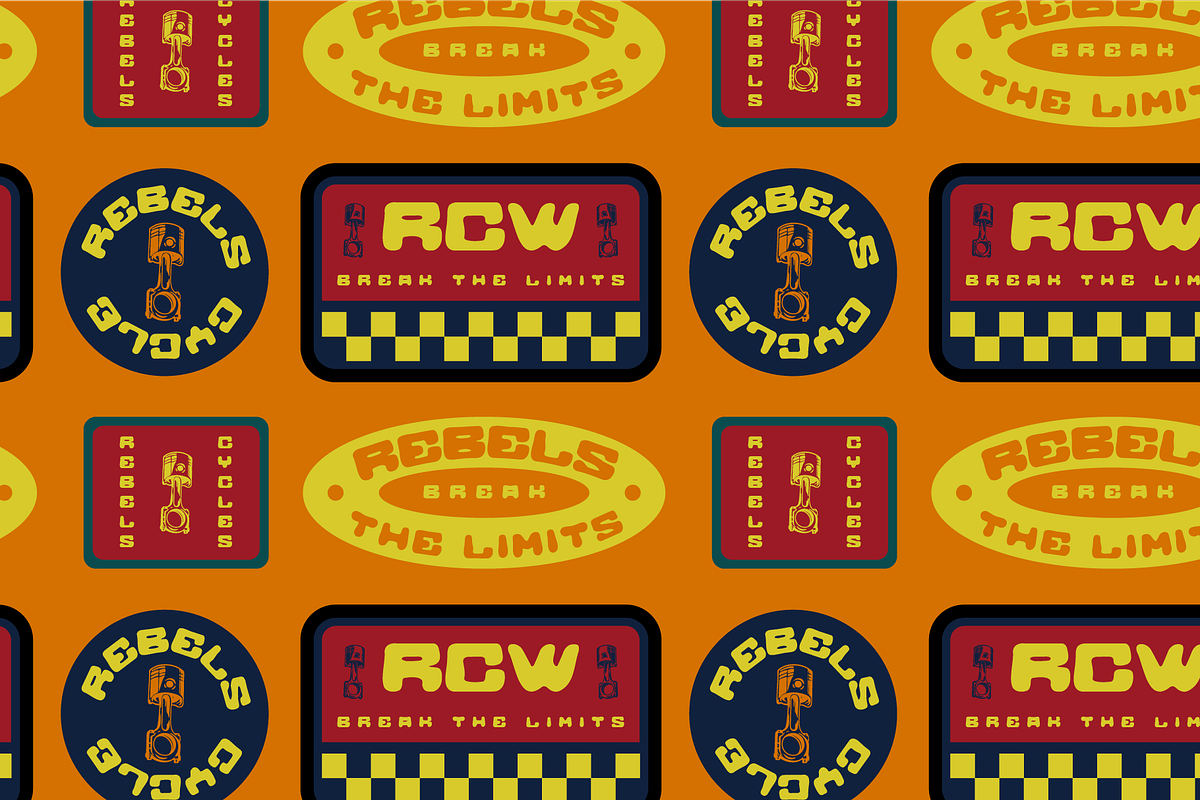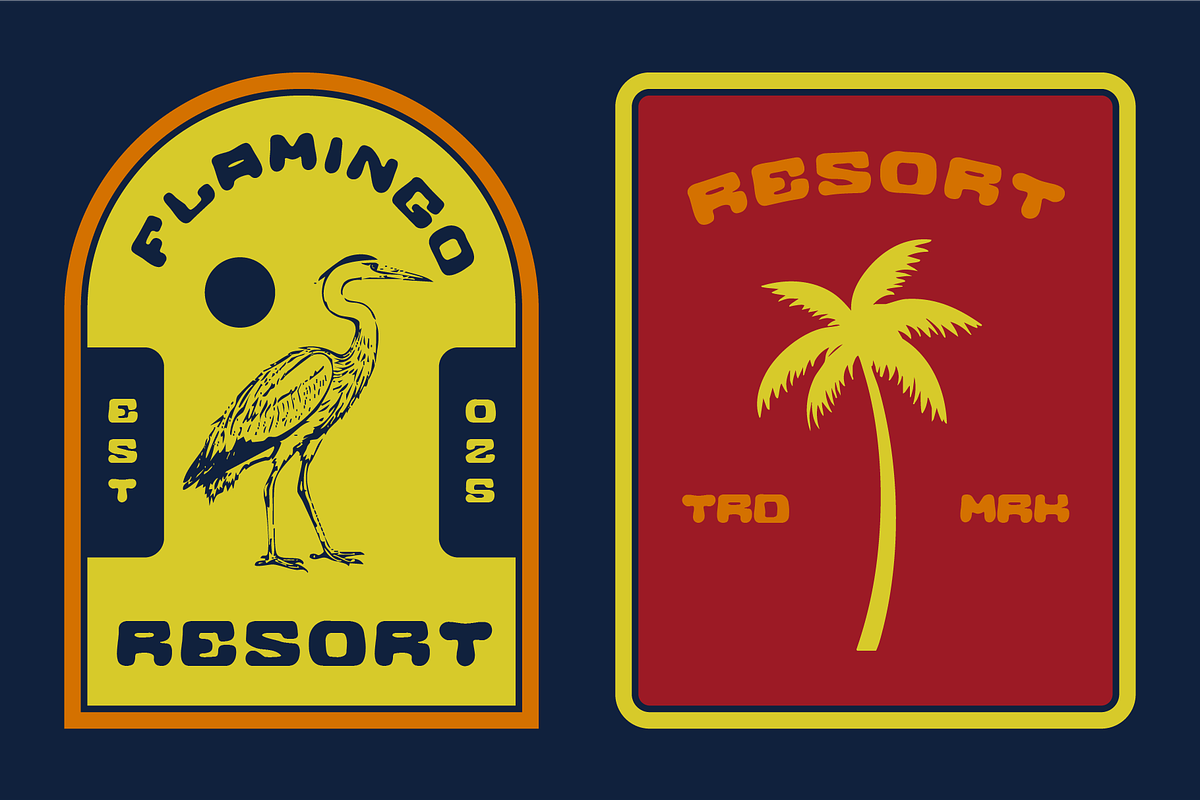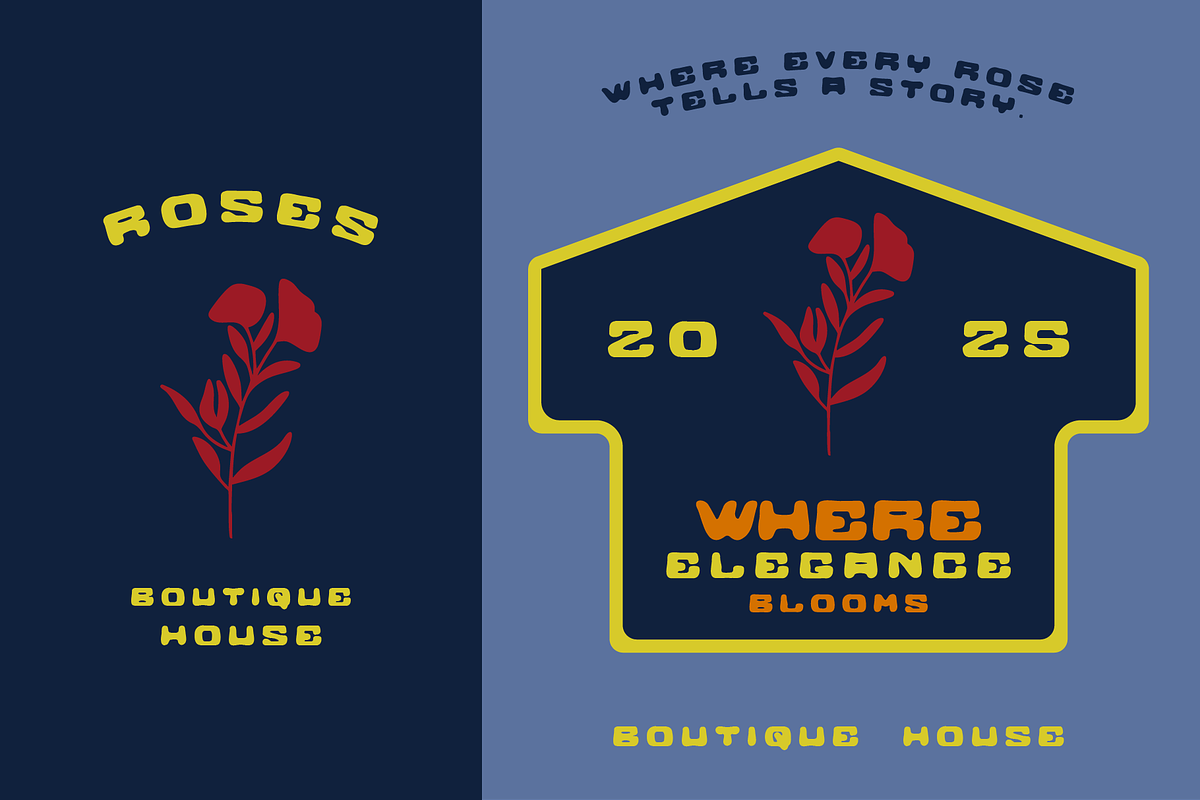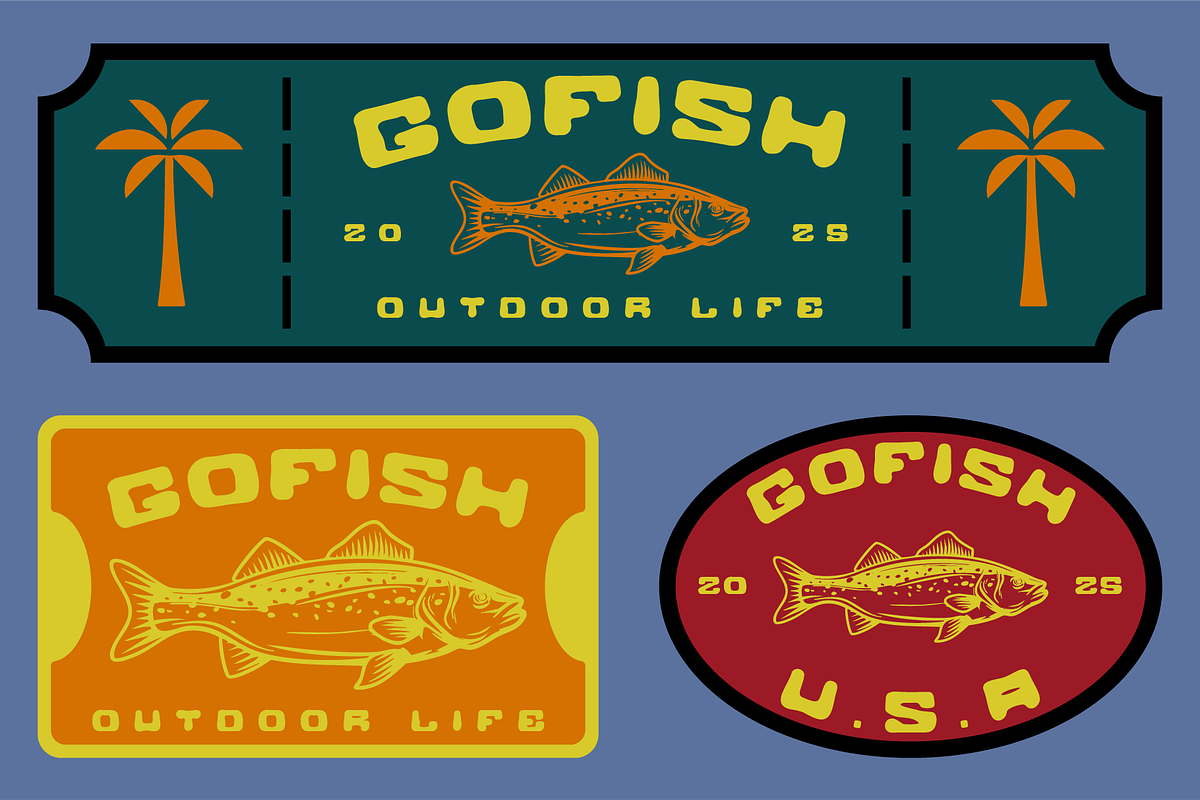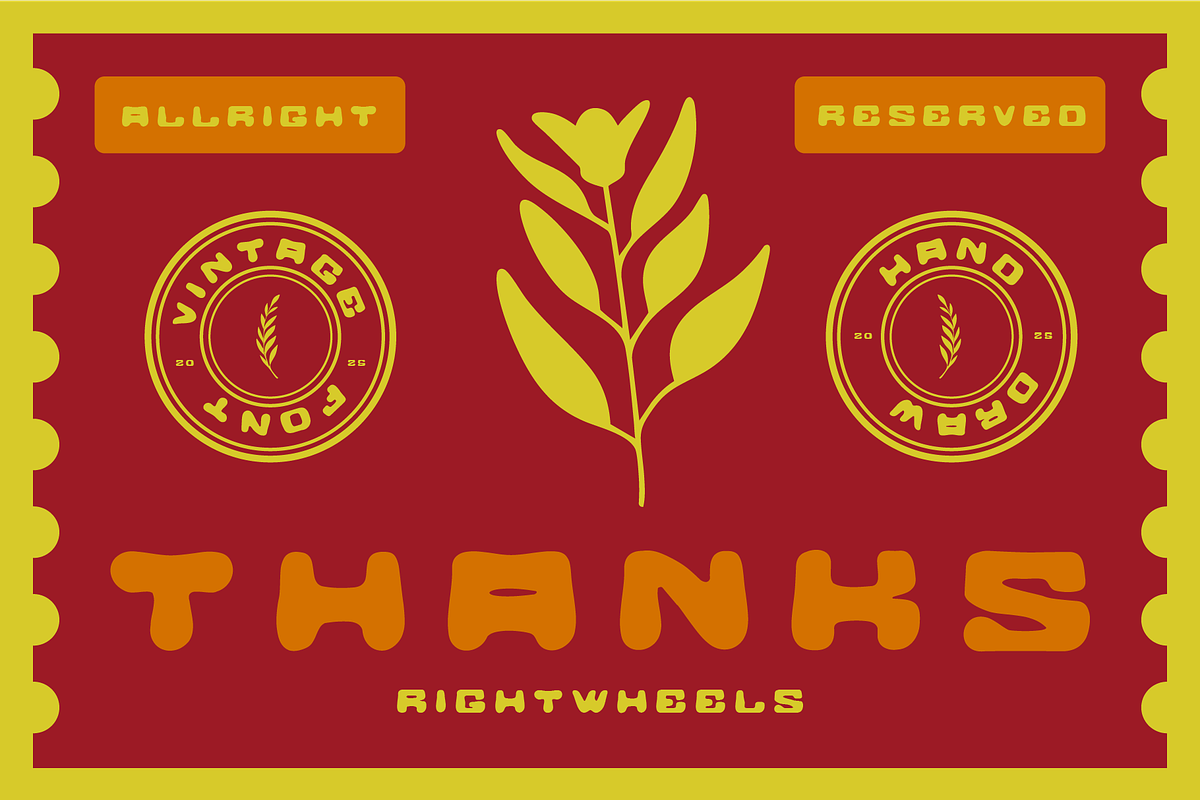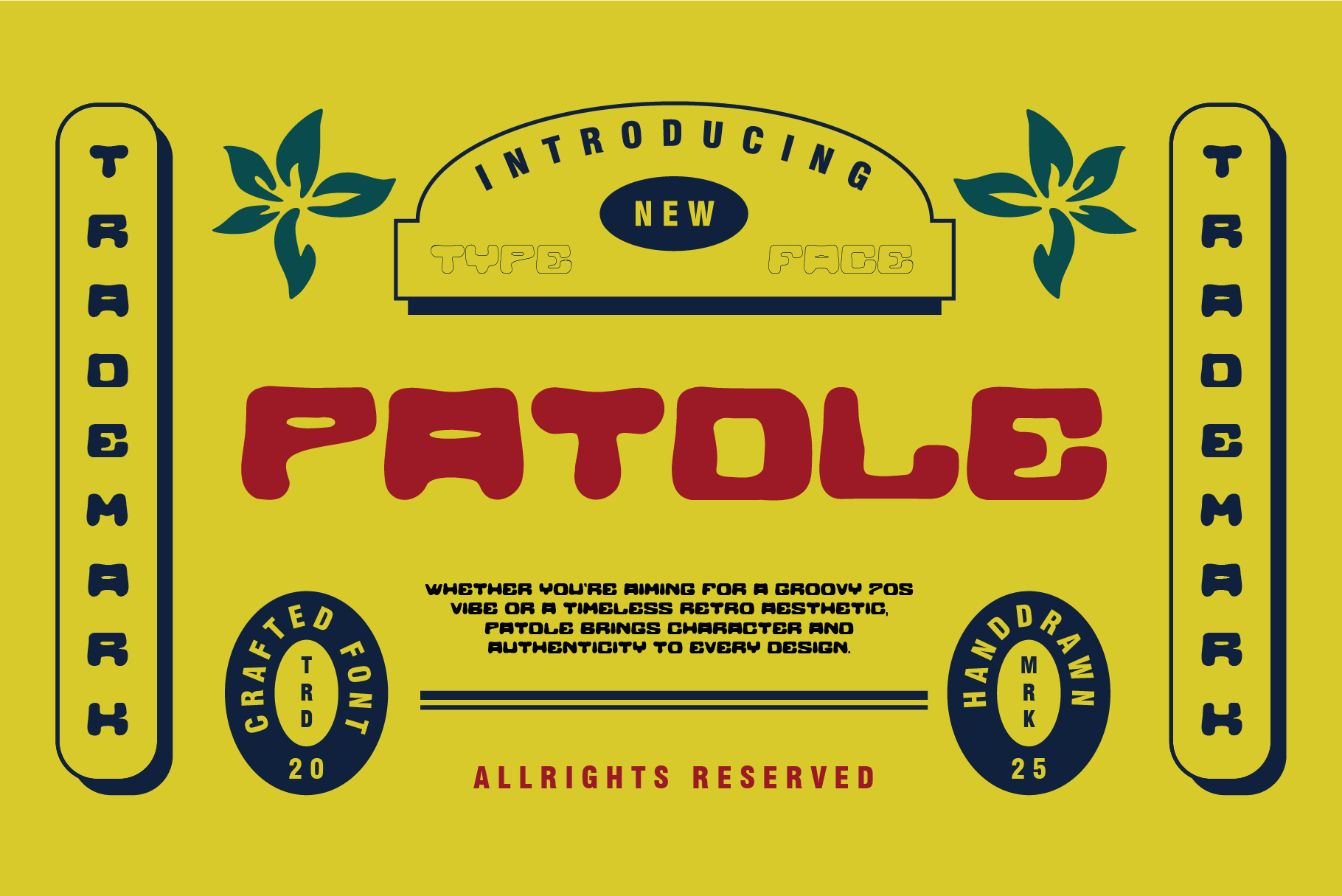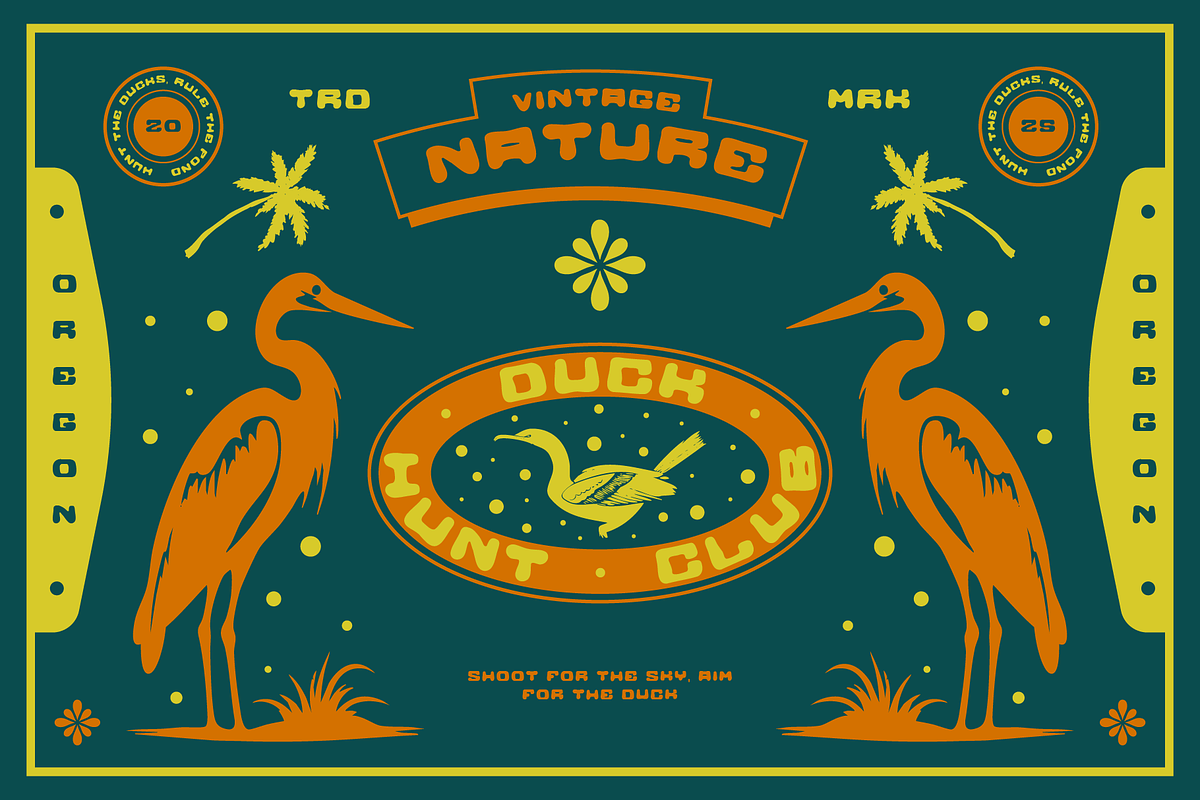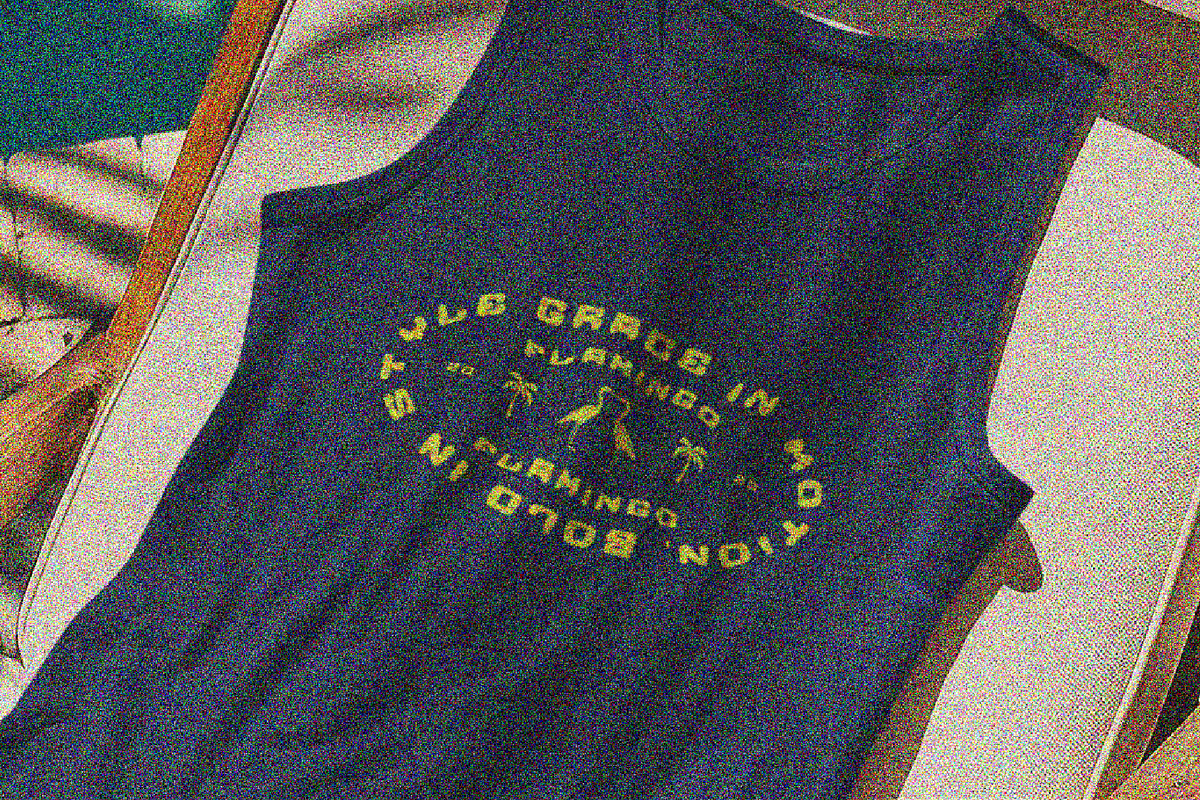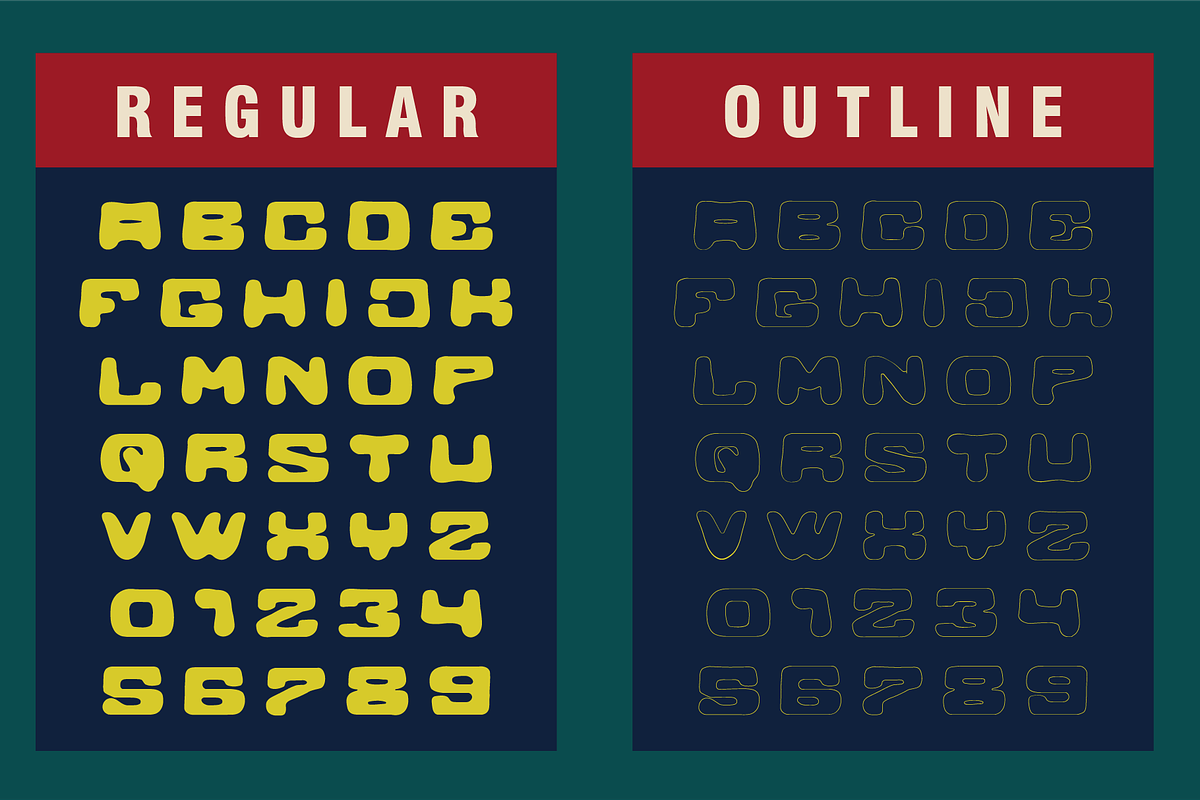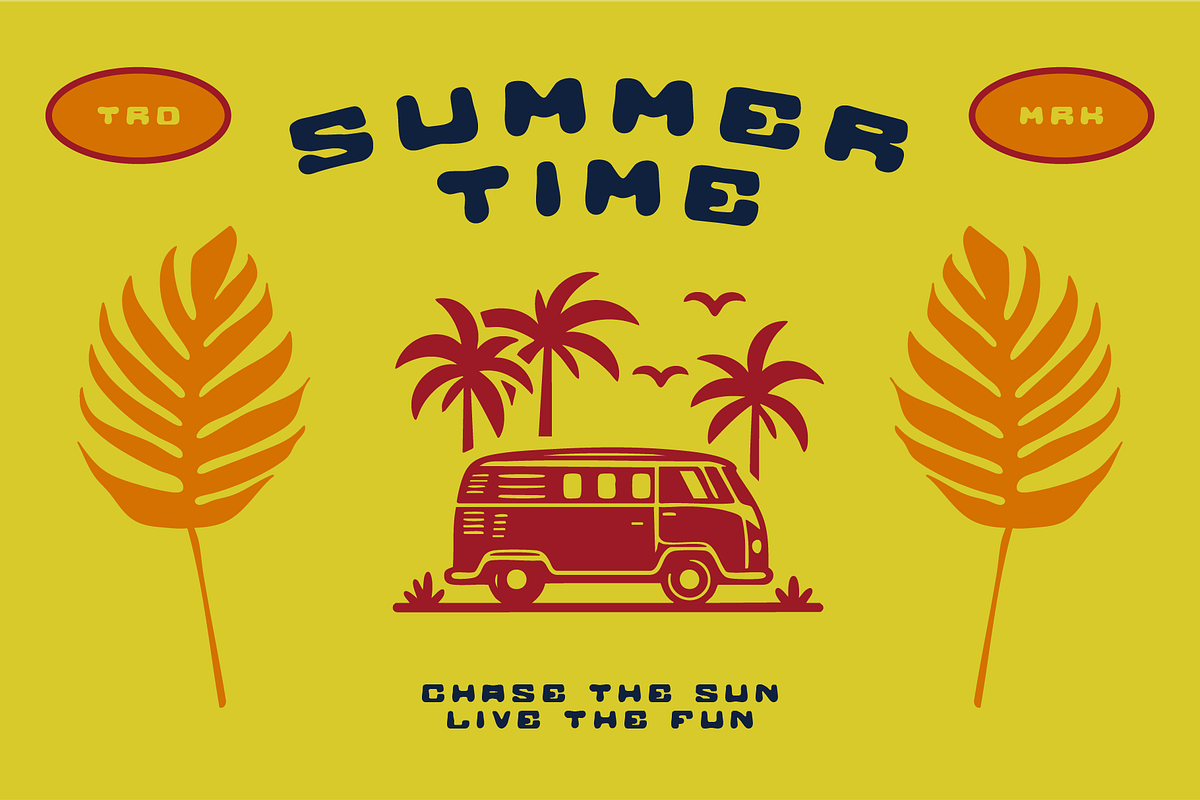
PATDLE - Retro Display Font
Patdle is a bold retro typeface that captures the timeless spirit of vintage design. With its nostalgic curves and strong letterforms, PATDLE evokes the charm of classic signage, old-school posters, and retro branding. Perfect for logos, headlines, apparel, and creative projects, this font blends playful nostalgia with modern usability. Whether you’re aiming for a groovy 70s vibe or a timeless retro aesthetic, Patdle brings character and authenticity to every design.